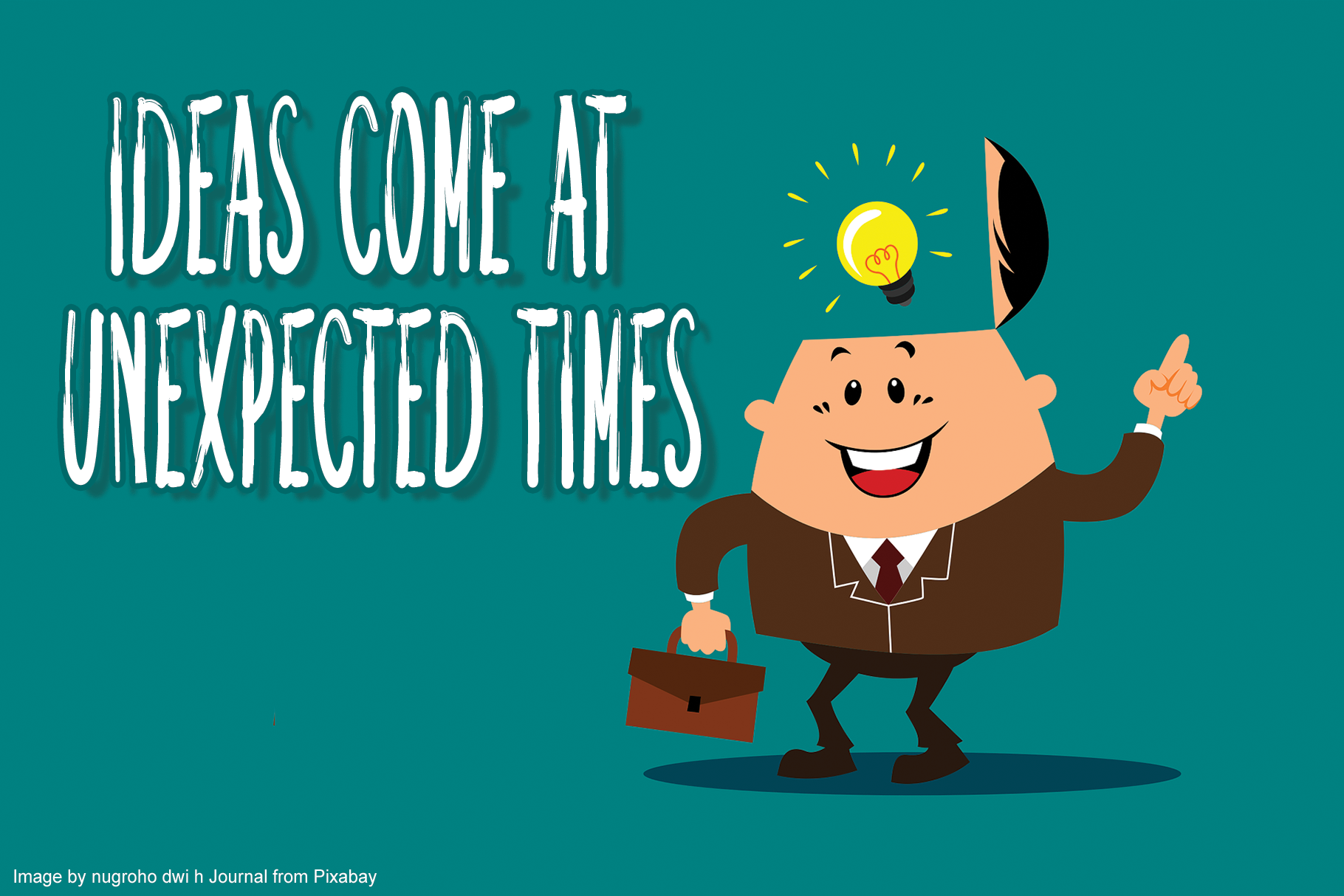
Good Idea Font
Good Idea Display Font
This is a cool, tall, brushed display font. Whether you are using it for cartoon-related designs, children’s games, quotes, titles, brand names, book covers, posters, or just any creation that requires a touch of beauty, this font is a great choice.